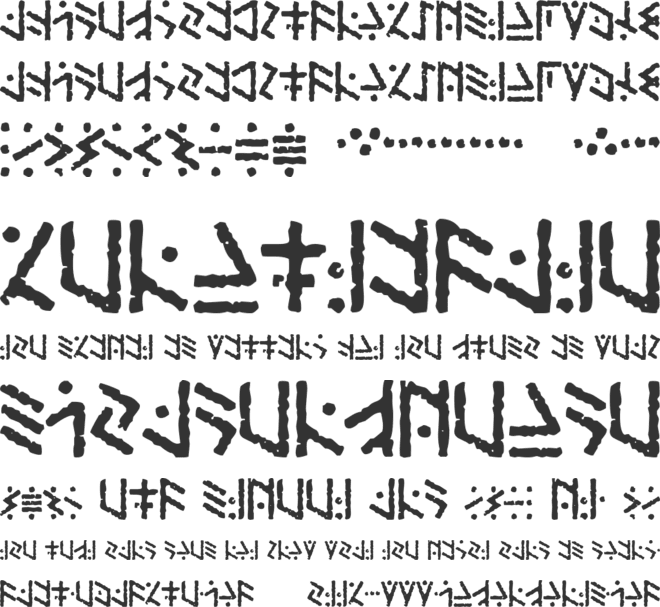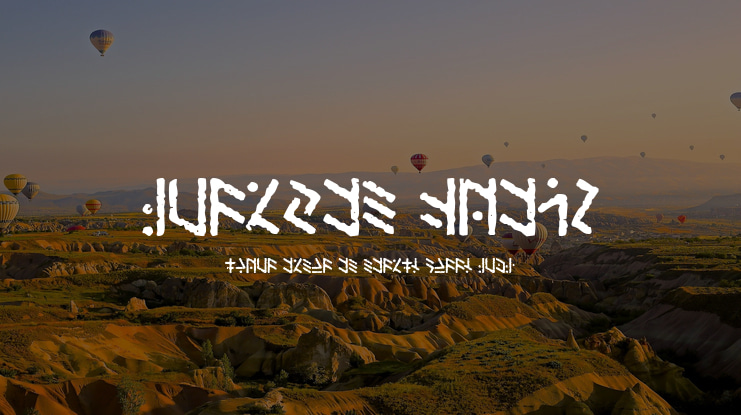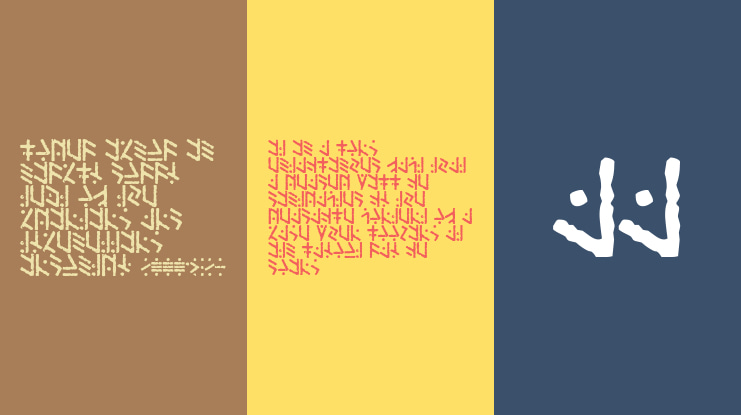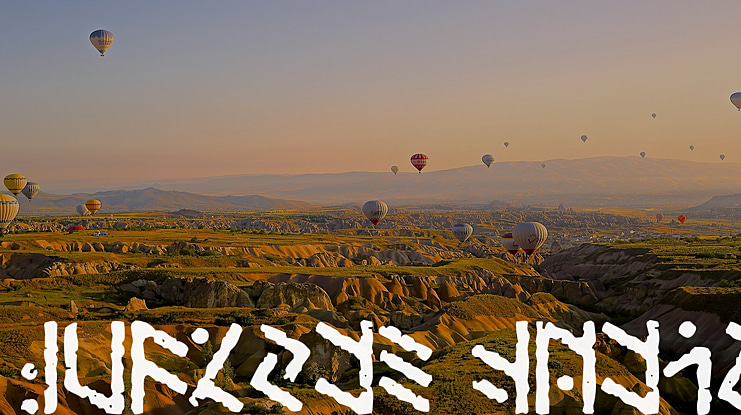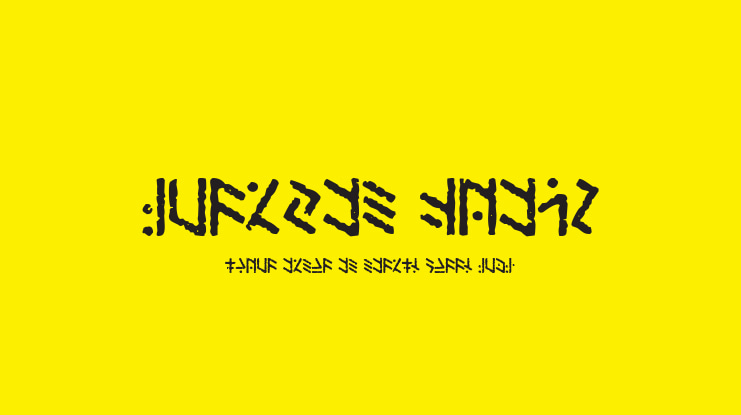
Temphis Brick Font Family
"Temphis Sweatermonkey" is an oddball sort of font, because it has a very modern look applied to letterforms meant for an (admittedly lighthearted) medieval fantasy world. It would, however, make a very nice futuristic-alien sort of thing, good for signage aboard a spaceship or other kind of project. If you enjoy this font, visit the Temphis Runes page and download the freeware sampler of that, too (which includes another free font, a patchwork frankenstein of the entire family).This particular variant, Temphis Knotwork, is a rough draft of a celticky take on it, tongue in cheek. I hand-doodled the masters over giant printouts of Temphis Scrivener, modifying as I went. If you're a Uresia or Temphis Runes fan, add it to your collection ... If you're new to both, snag it and put it to whatever use you enjoy!Temphis Brick is the third in a series of limited-release variants for the Temphis Runes (after Temphis Sweatermonkey and Temphis Knotwork). Sorry I got this up so late this month; I had a nasty flu kicking my butt for the past week and change.It's hard for anything in Uresia to really be anachronistic (it's a fantasy world where children have hand-held videogames), but this playful free expansion to the Temphis Runes comes close. It's called Temphis Dirty because it's stressed and blotted to evoke a sense of worn-out newsprint (much like one of my old standards, Dirty Headline). Like its sister fonts, Temphis Dirty is a caps-and-numerals set with limited punctuation (but that's all the punctuation they have in Temphis, where they have more colorful fish to fry). Enjoy!If you're interested in licensing this font for public or organizational use, email me at  (mailto:) and be sure to specify the font's title. I'll respond with instructions.